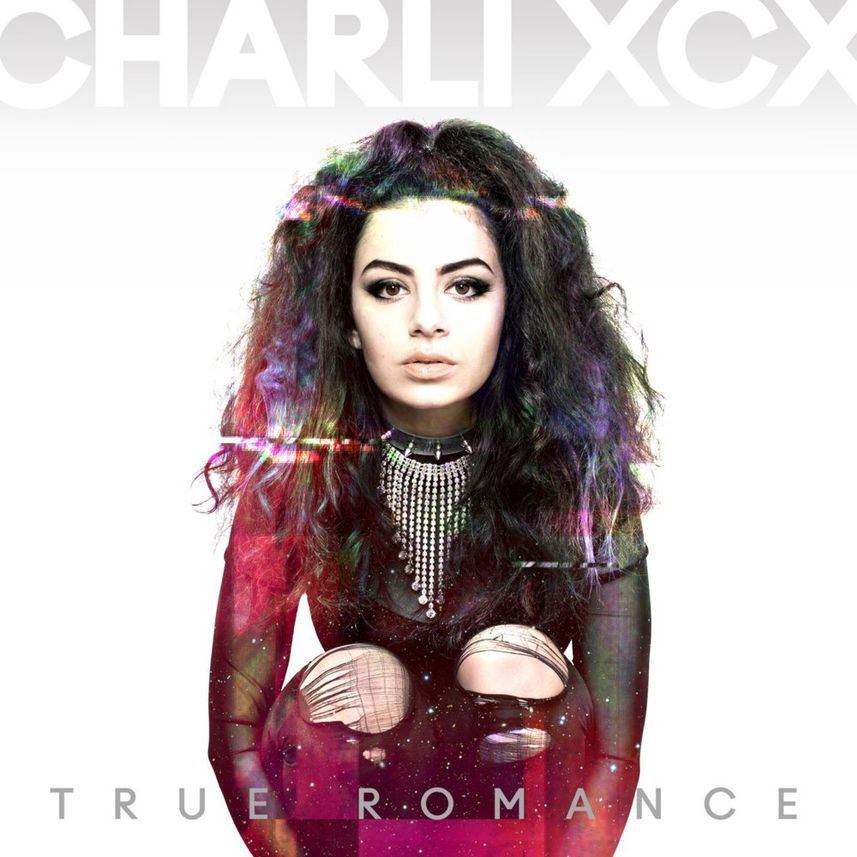
True Romance Font
Fonts in UseTrue Romance is the debut studio album by English singer Charli XCX, released in 2013. It features a blend of pop, electronic, and indie influences, and includes popular tracks like "Nuclear Seasons" and "You (Ha Ha Ha)."
The album cover features all-caps letters from Gareth Hague's Ano typeface, which was originally designed for Another Man magazine. Ano is a versatile geometric sans-serif font family with 54 fonts, allowing for a range of layout options.